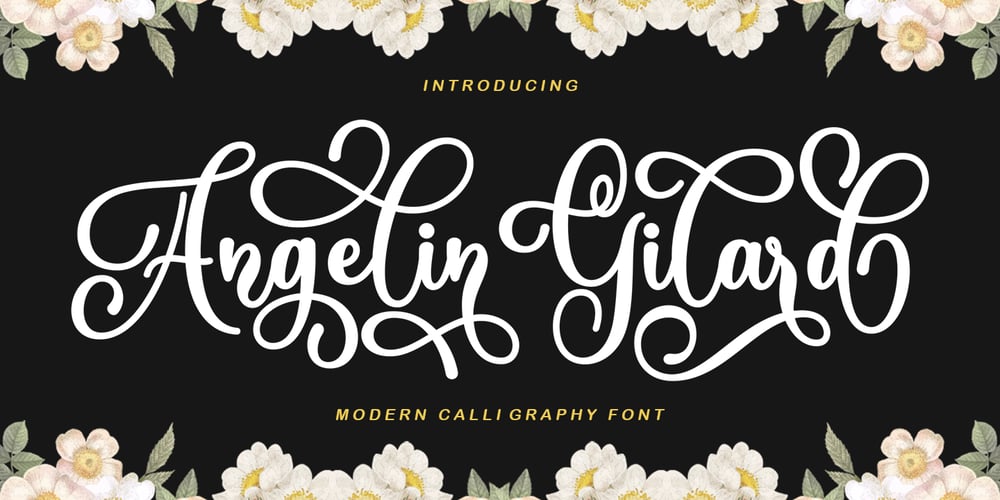
Angelin Girald Font Family was designed by M Irvan Syouqi S and published by IRF Lab Studio. Angelin Girald contains 1 styles and family package options. Angelin Girald is a beautiful and elegant script font. This font is perfect for logos, branding, invitations, social media posts, and any other designs that require a touch of handwriting and can be used for almost every design. This font is coded PUA which means you can access all the amazing glyphs and swashes easily! It also has many special features including alternative flying machines and ligatures.To activate the OpenType Stylistic alternative, you need a program that supports OpenType features such as Adobe Illustrator CS, Adobe Indesign & CorelDraw X6-X7, Microsoft Word 2010 or newer versions.There are additional ways to access alternatives / swashes, using Character Maps (Windows), Nexus Fonts (Windows), Font Books (Mac) or software programs such as PopChar (for Windows and Mac).If you need help or advice, please contact me via email.Thank you!